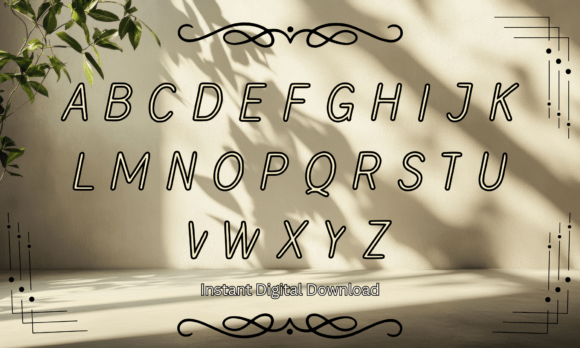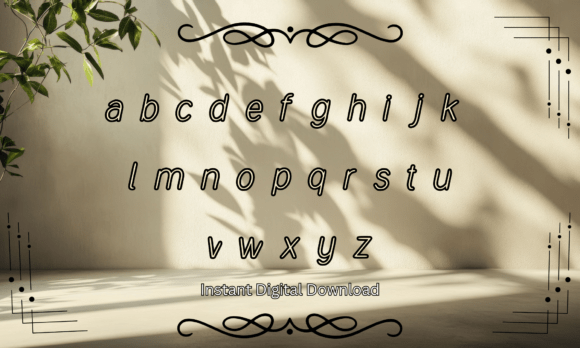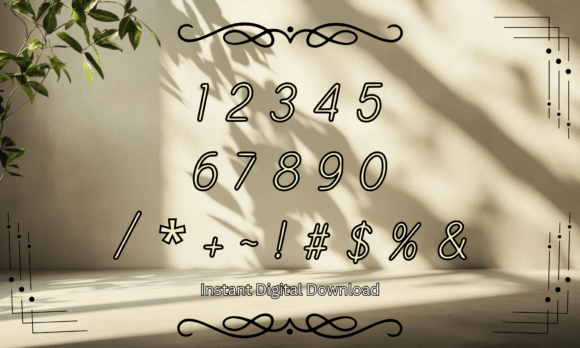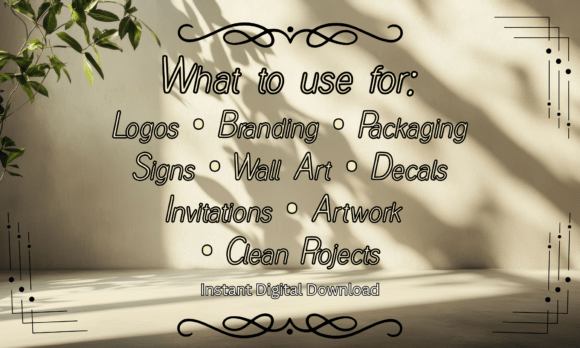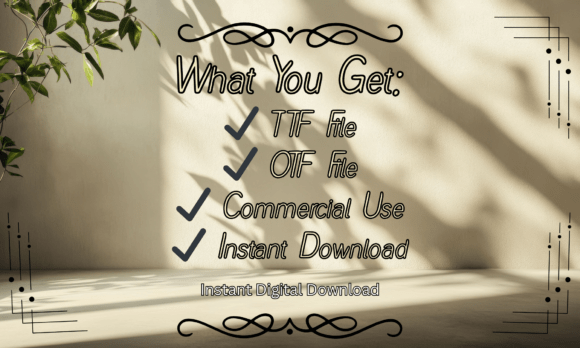
Unlock the Power of Simplicity: Introducing Clean Minimal Font
Do you remember the moment when you finally nailed the perfect design? The one that effortlessly captures your brand’s essence and resonates with your audience? For many creatives, it’s a feeling that’s hard to replicate, but one thing’s for sure – it starts with a solid foundation: a font that speaks to your aesthetic.
Enter Clean Minimal Font, a modern and elegant typeface designed to bring clarity, balance, and effortless style to your designs. With its smooth, rounded letterforms and clean outline look, this font is perfect for modern branding, minimalist designs, and professional projects. Whether you’re designing logos, social media graphics, or product packaging, Clean Minimal Font delivers a polished and timeless aesthetic that’s sure to elevate your work.
Clean Minimal Font Key Features
- Character Set: The font includes a comprehensive set of characters, including uppercase and lowercase letters, numerals, punctuation marks, and special characters, making it suitable for various applications.
- Unique Characteristics: The font’s clean and minimalist design makes it ideal for use in modern and sleek applications, such as branding, advertising, and digital interfaces.
- Legibility: Clean Minimal Font is designed to be highly legible, even at small font sizes, making it suitable for use in body text and other applications where readability is crucial.
- Font Weight: The font includes multiple font weights, ranging from Light to Bold, allowing users to customize the font’s appearance to suit their needs.
Designer Review: Clean Minimal Font
When I first laid eyes on the Clean Minimal Font, I was immediately drawn to its ✨ clean lines and modern aesthetic. The font is perfect for designers and businesses looking for a sleek and sophisticated look. The font’s simplicity makes it easy to read, even at smaller font sizes.
- ✨ The font is highly customizable, with a wide range of weights and styles to choose from.
- ✨ The font is extremely legible, making it perfect for body text and headlines.
- ✨ The font is highly versatile and can be used for a variety of projects, from logos to brochures.
However, there are a few limitations to the font that should be noted:
- ⚠️ The font may be too minimalist for some projects, making it difficult to add visual interest.
- ⚠️ The font may not be as effective for projects that require a lot of emphasis or drama.
Overall, I think the Clean Minimal Font is a great choice for designers and businesses looking for a clean and modern aesthetic. While it may have some limitations, the font’s versatility and customizability make it a great addition to any design toolkit.
Practical Application Guide: Clean Minimal Font
Tips for Getting the Most Out of Clean Minimal Font
For best results, use Clean Minimal Font in conjunction with a simple, clean design aesthetic. Avoid using too many fonts or excessive styling to maintain a minimalist look.
Clean Minimal Font is ideal for:
- Resume and CV design
Alternatives to Clean Minimal Font
Montserrat is a sans-serif font designed for urban environments. It is highly legible and suitable for digital and print media. Montserrat is a popular alternative to Clean Minimal Font due to its geometric and modern aesthetic. Use Montserrat when you need a clean and modern look for your digital products or marketing materials.
Open Sans is a modern sans-serif font designed for digital media. It is highly legible and suitable for body text. Open Sans is a versatile font that can be used for a variety of applications, from digital products to marketing materials. Compared to Clean Minimal Font, Open Sans has a slightly more rounded aesthetic and is more suitable for digital use.